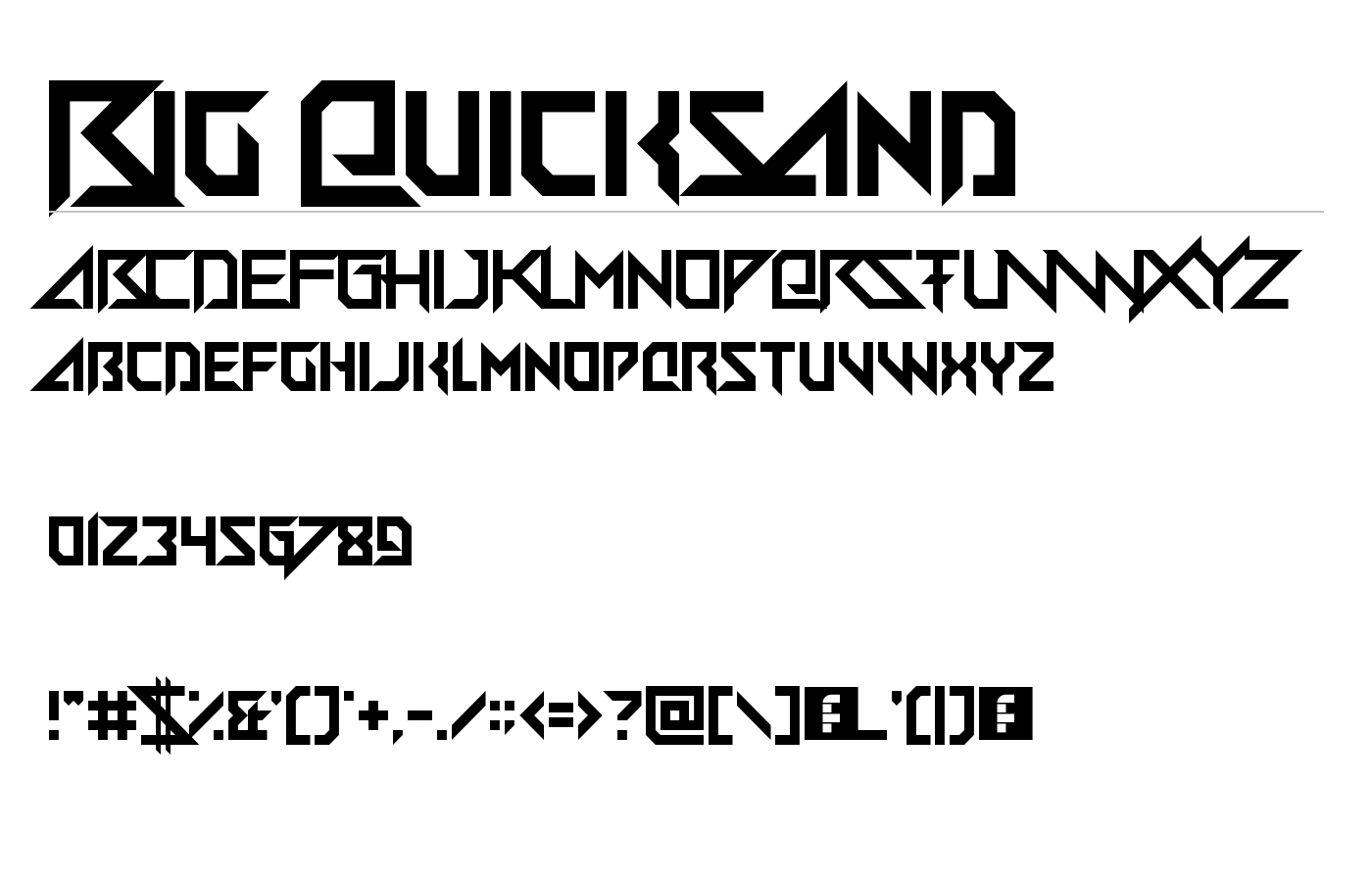
Big Quicksand is a bold, geometric display font with sharp, angular letterforms that give it a strong, futuristic vibe. Its condensed width and high contrast between thick and thin strokes make it striking and ideal for attention-grabbing headlines, logos, and branding that seek a modern or tech-forward personality. This font works best in creative projects needing a unique, edgy style rather than body text due to its distinctive, hard-edged design.
Big Quicksand Font
About Big Quicksand Font
| Font family | Big Quicksand Font |
| Designer | Andrew McCluskey |